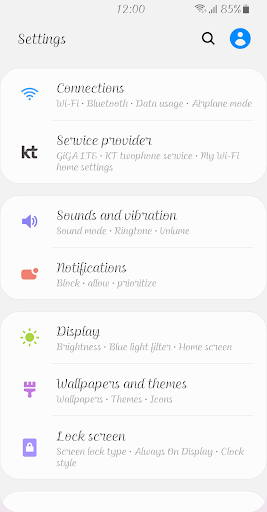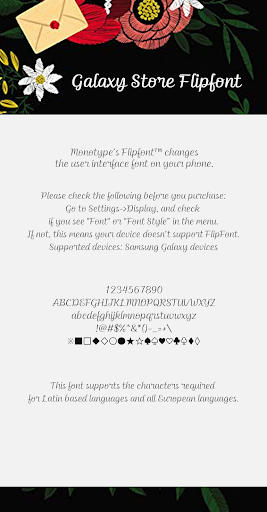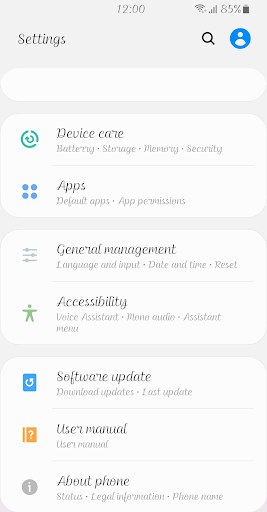
ZF Dearest
This font is a script-style typeface with a mature handwriting look.
Bold curves and quick movements vary the thickness of the strokes, while the ends of the strokes are softened.
It conveys the warmth of your heart with heartfelt expressions.